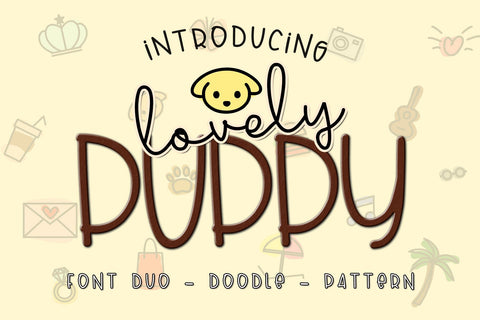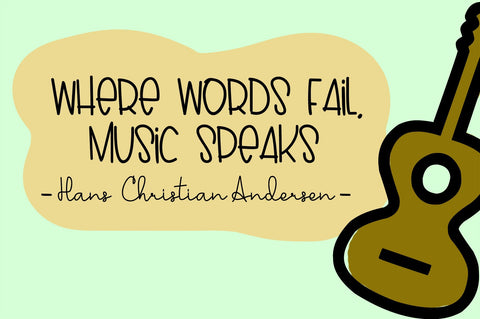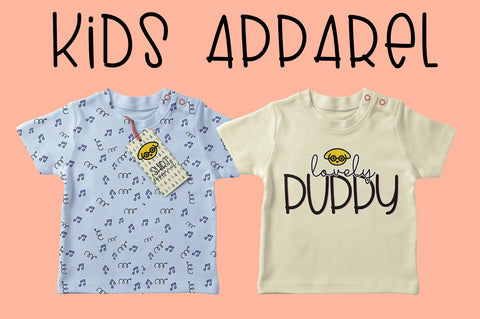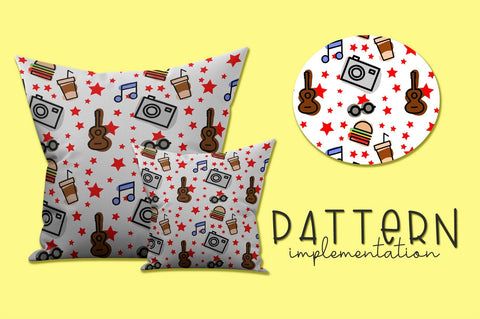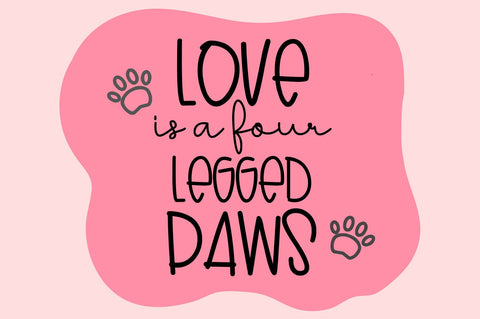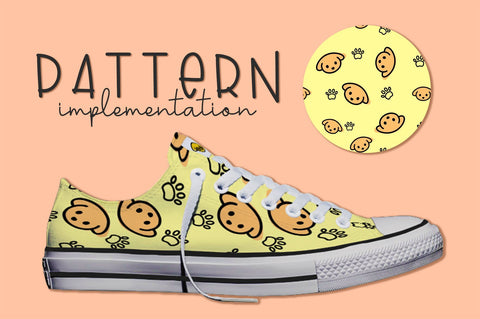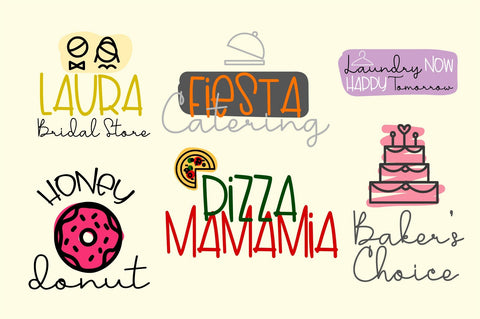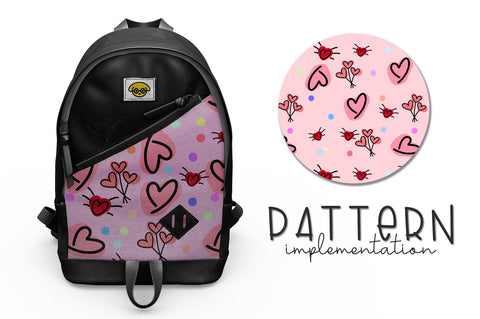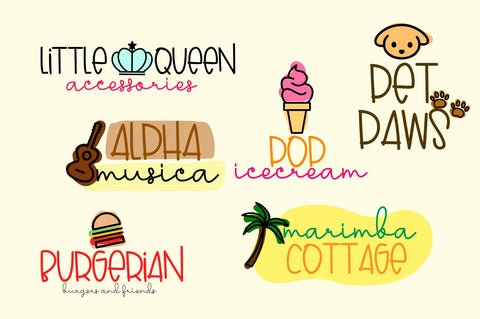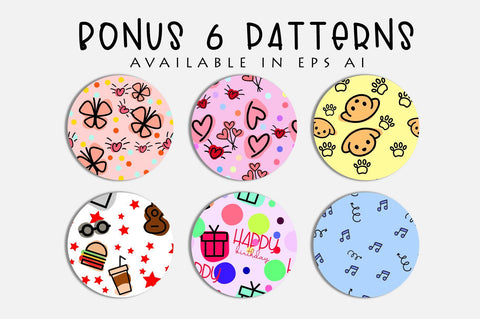
Lovely Puppy - Font duo with bonus
LOVELY PUPPY is a pair of font duo which can make your design more lovely !This font package contains monoline sans serif font and monoline script font, they'll be a great pair to beautify your project :) And also the great offer is : we included the EXTRA BONUSES 52 doodles and 6 cute Patterns for FREE !
Lovely Puppy is a handwritten font duo package, special made for you to greet this holiday season. We included some doodles with some "holiday activities" theme--not only for puppy lovers. They'll great choice for making some quotes, logos, branding, packaging, crafts, merchandises, cards, book cover, advertisements, stickers, or maybe for some social media posts--in any occassion.
Lovely Puppy package also has 6 Seamless Patterns, these patterns will bring some cute touch to your project, great for invitations background, greeting cards, scrapbooks, gift papers, planners, ribbons, textile or fabric patterns, and much more! Just have fun with these pair of fonts, doodles, and patterns.
Lovely Puppy features :
- - Standard Characters ( A-Z, a-z )
- - Numerals and symbols
- - Multilingual Supports,
- - Ligatures
- - 52 Doodles
- - 6 Seamless Patterns